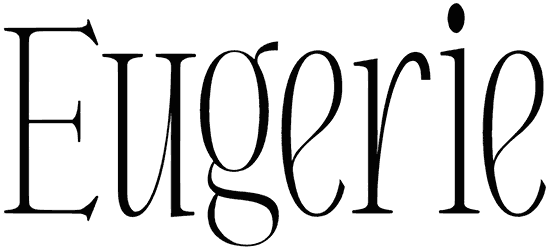
Eugerie Font
Most of the time, classic and chic lettering is a perfect option to beautify the words of your varied designs, and this neat font can do it. Eugerie font’s characters are classic and clean, and it will reflect a confident vibe to your viewers.
This serif font doesn’t include numbers and punctuation marks, but with two versions, it can be added to your projects like a drama movie poster, and make them stunning.